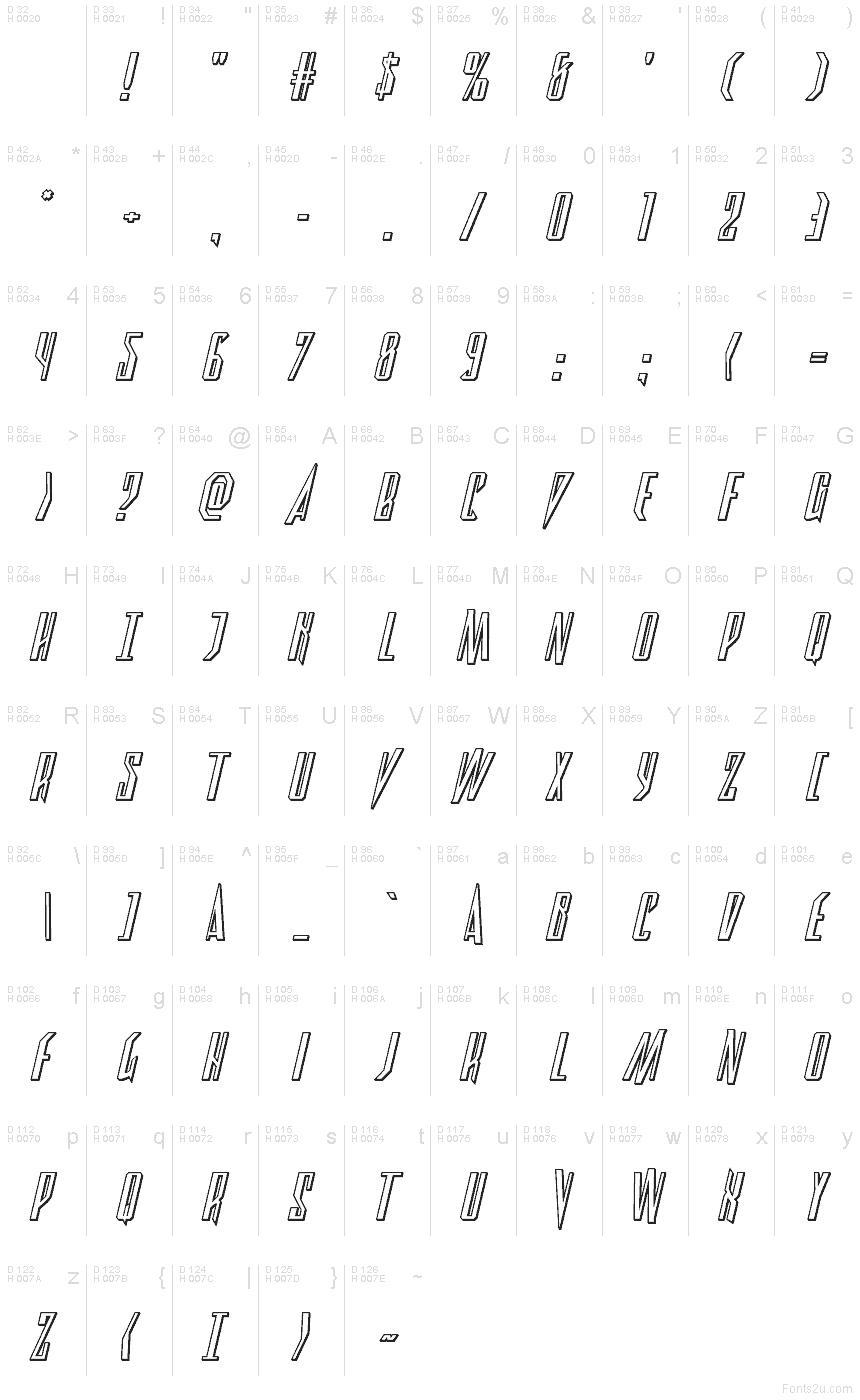
Archnemesis 3D Italic
Archnemesis 3D Italic font by Iconian Fonts is a free sci‑fi display typeface that looks like it just stepped out of a comic book showdown. Tall, narrow letters rocket forward in a sharp italic slant, while the layered 3D outline adds a metallic, armored edge. The Archnemesis family’s signature angular cuts and tight rhythm give every word a sense of speed and tension, like a logo frozen mid-impact.
Using Archnemesis 3D Italic, your titles instantly feel like movie credits, game logos, or villain monikers. This free font shines on comic covers, esports branding, YouTube thumbnails, retro-futuristic posters, and bold merch graphics. Keep it big and bold, then pair it with a clean, neutral sans serif for body copy so the dramatic forms stay readable and commanding.